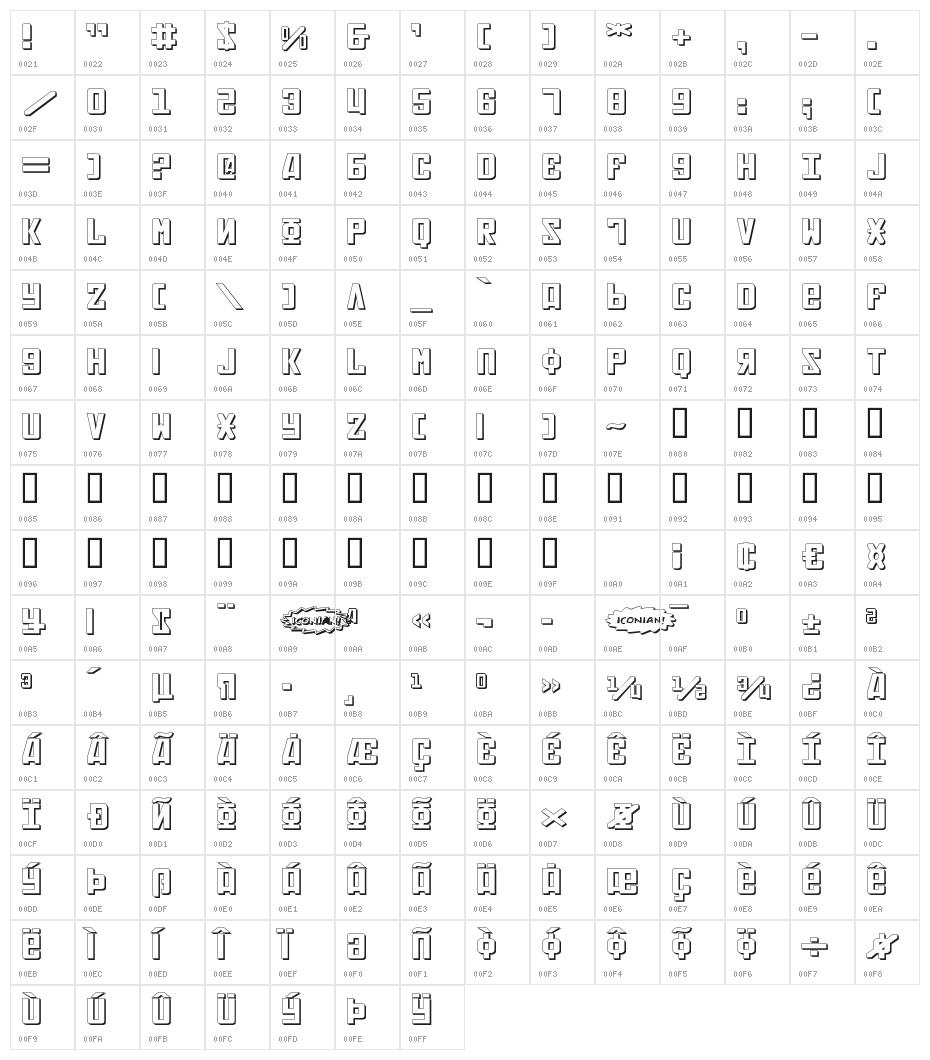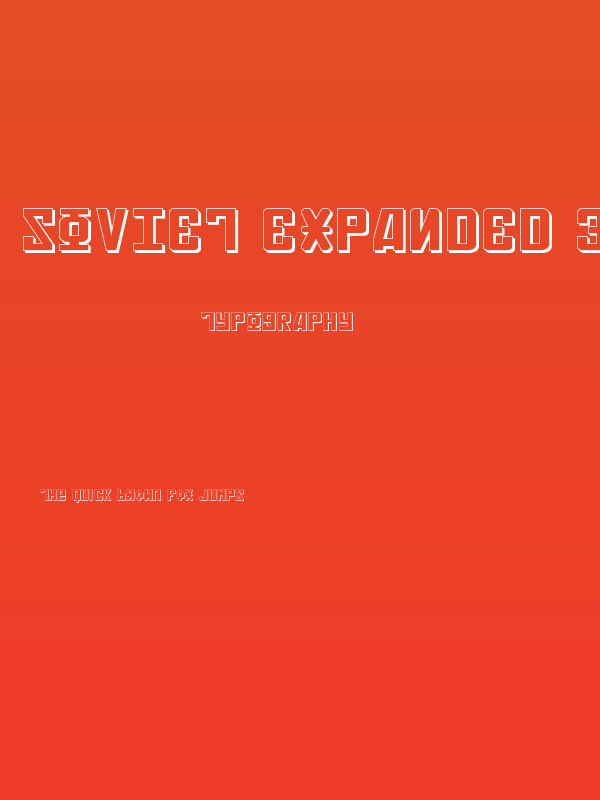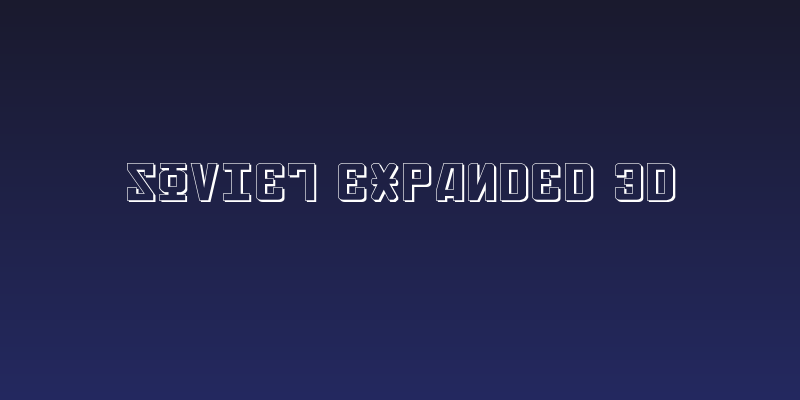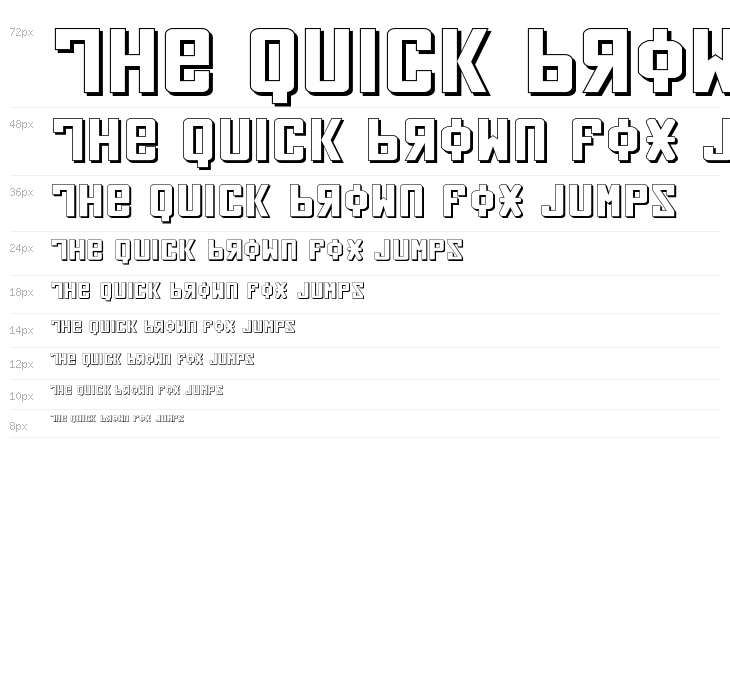
Soviet Expanded 3D Font
Soviet Expanded 3D Description
This font features a bold, geometric design with a three-dimensional effect that gives it a striking and impactful appearance. The characters are outlined with a thick border, enhancing the 3D illusion and making each letter stand out prominently. The style is reminiscent of Soviet-era design, with angular and blocky shapes that convey strength and solidity. The uppercase and lowercase letters maintain a consistent style, with unique variations in certain characters that add to the font's distinctiveness. The numerals and special characters are designed to match the bold and structured aesthetic, ensuring a cohesive look across all elements.
| Proposed Projects | Ideal for posters, logos, and branding projects that require a strong, impactful visual presence. |